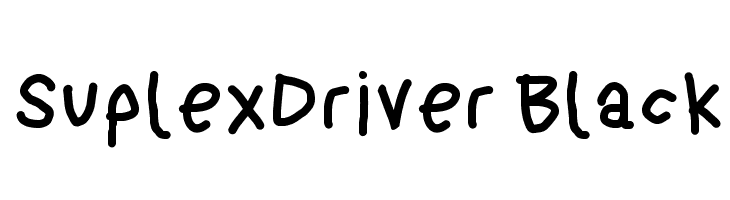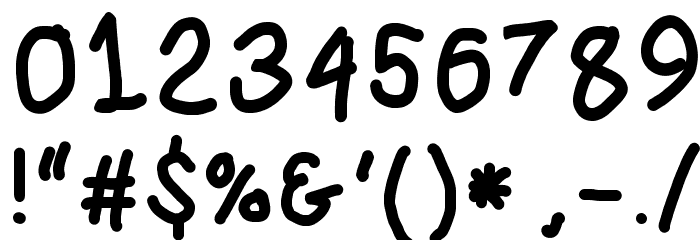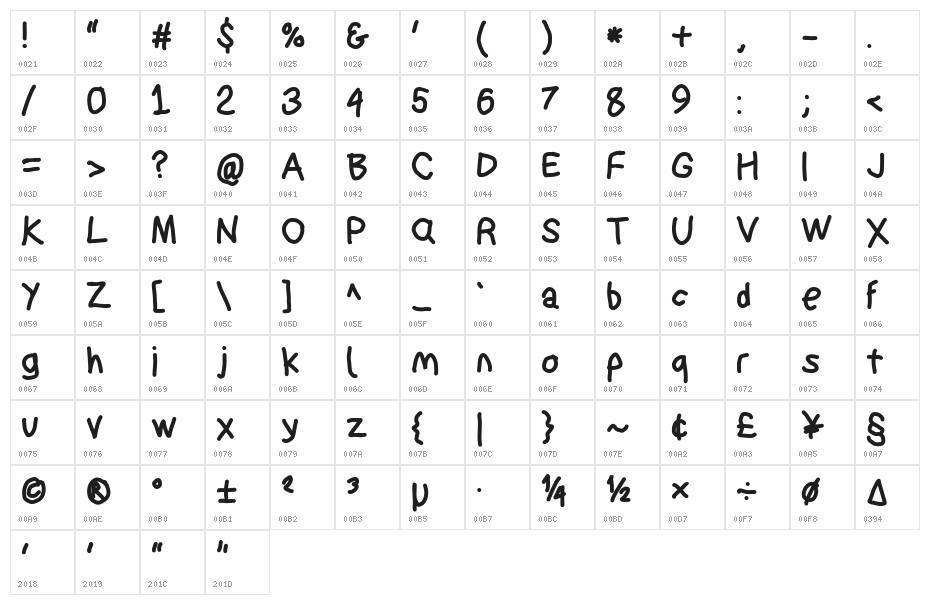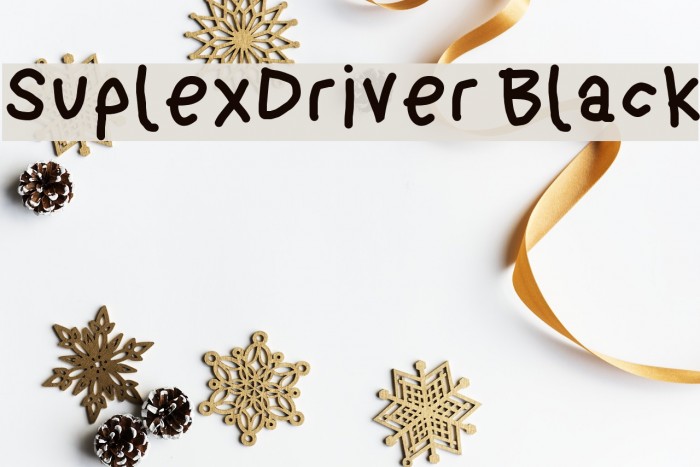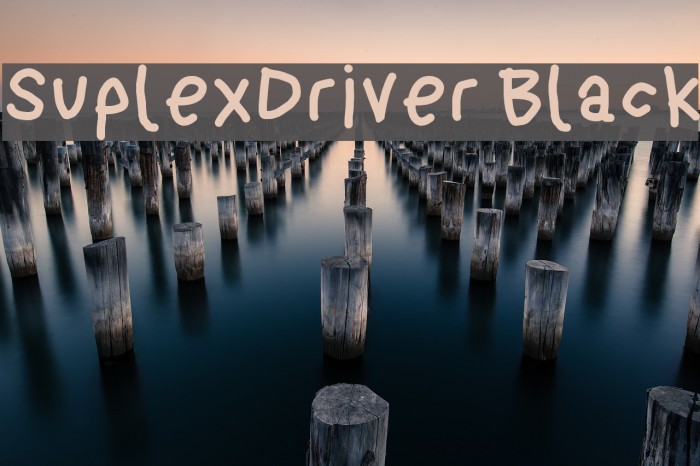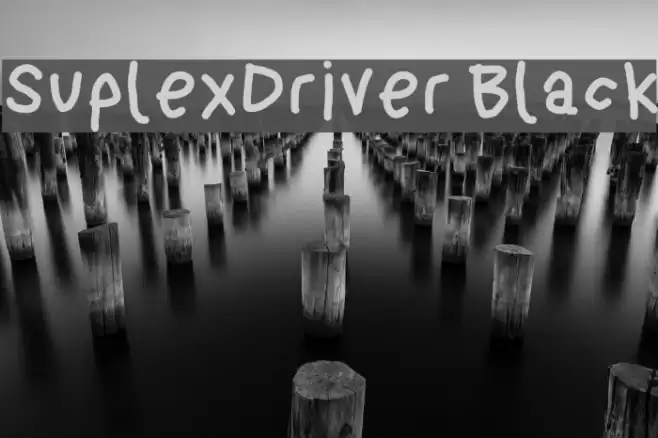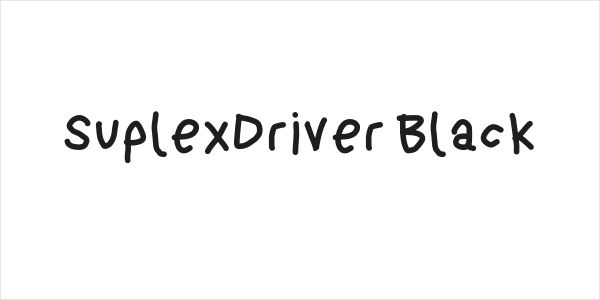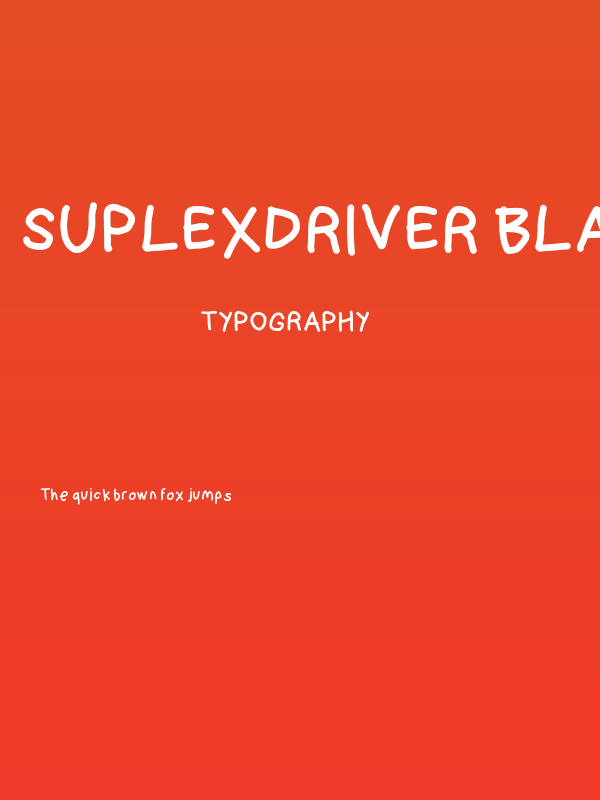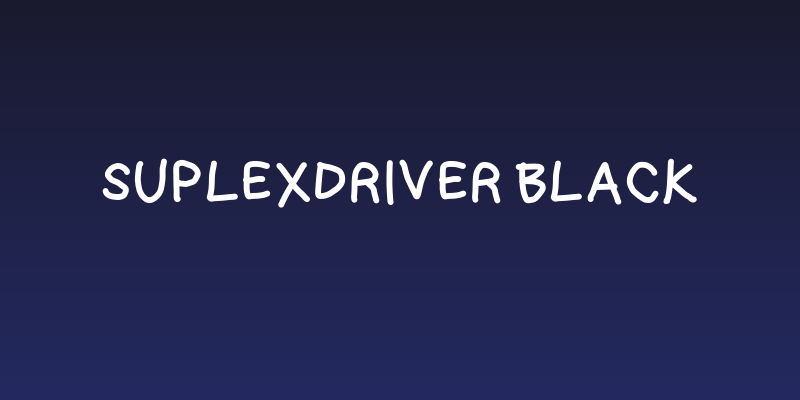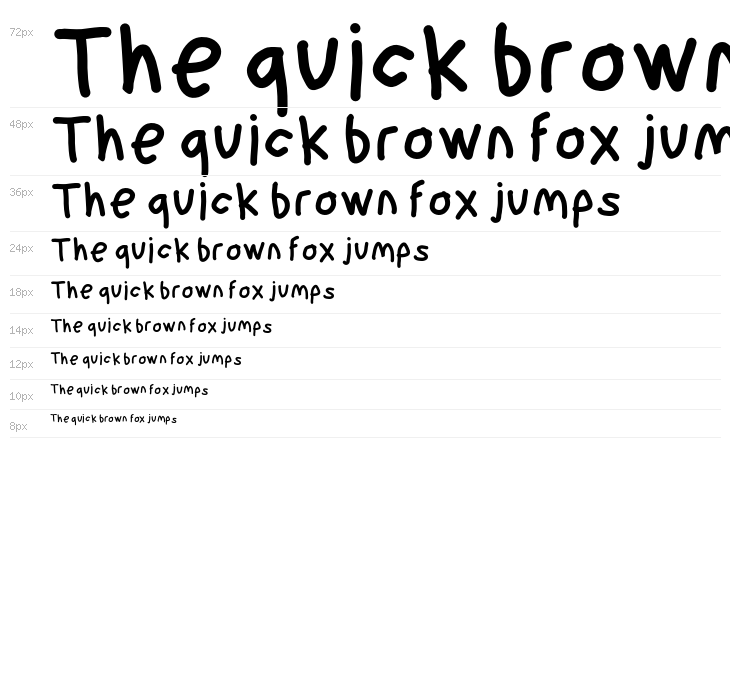
SuplexDriver Black Font
SuplexDriver Black Description
This font features a playful and bold handwritten style, characterized by its thick strokes and slightly irregular shapes, giving it a casual and friendly appearance. The letters are rounded and have a consistent weight throughout, which adds to its informal charm. The uppercase and lowercase letters maintain a uniformity that ensures readability, while the numbers and special characters complement the overall style. This font exudes a sense of fun and creativity, making it ideal for projects that require a personal touch.
| Proposed Projects | Ideal for children's books, playful branding, casual invitations, and creative posters. |